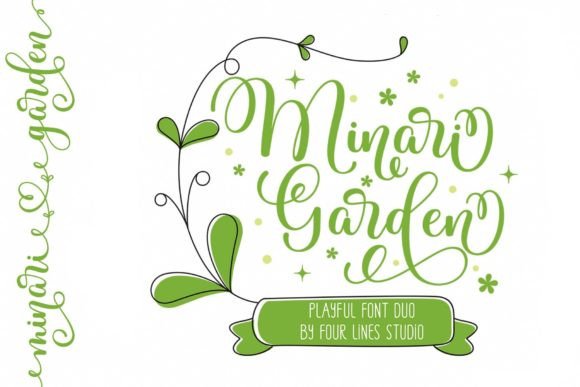
Step into the world of Minari Garden Duo Font, where elegance and charm intertwine to create masterpieces. This captivating font family, crafted by the talented Fourlines.design, is a harmonious blend of a playful sans serif and a mesmerizing curly calligraphy font. Minari Garden is not just a font; it's an experience, an invitation to unleash your creativity and transform your designs into works of art.
With its delicate curves and dynamic strokes, Minari Garden effortlessly adds a touch of vintage charm to any project. Picture your designs adorned with this font, exuding a timeless elegance that captivates hearts. From wedding invitations that whisper romance to business cards that command attention, Minari Garden is the perfect choice for those seeking a font that speaks volumes.
Unleash your inner artist and let Minari Garden guide you through a symphony of creativity. Design logos that leave a lasting impression, greeting cards that warm hearts, and brand identities that exude professionalism. Minari Garden's versatility extends from craft designs to DIY projects, adding a touch of sophistication to every endeavor.
But Minari Garden is more than just a versatile font; it's a gateway to a world of refined aesthetics. Its dainty accents elevate your designs, adding a touch of grace and allure. Whether you're creating posters that demand attention or social media posts that spark engagement, Minari Garden transforms your words into visual masterpieces.
Join the creative revolution and embrace Minari Garden Duo Font. Let its timeless beauty enhance your designs, captivating audiences with its enchanting aura. Download Minari Garden today and unlock a world of endless possibilities, where creativity knows no bounds.